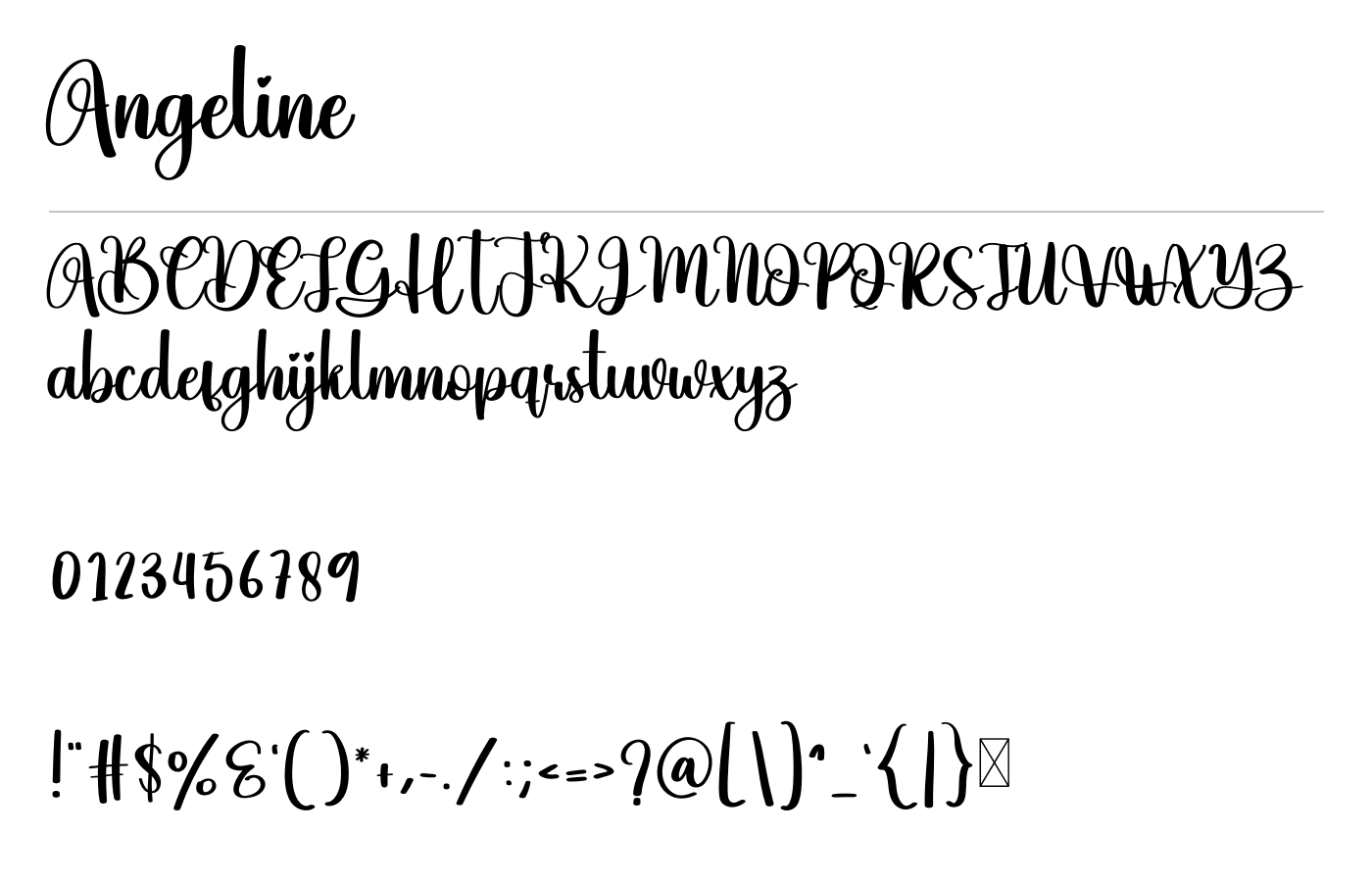
Angeline is a charming script font with a hand-lettered feel, featuring elegant, flowing strokes and playful swashes that add personality and warmth. Its moderate weight and smooth curves make it ideal for branding, invitations, and creative projects that seek a friendly yet sophisticated touch. This font works best in headline or decorative use, bringing a stylish and approachable vibe to any design.
Angeline Font